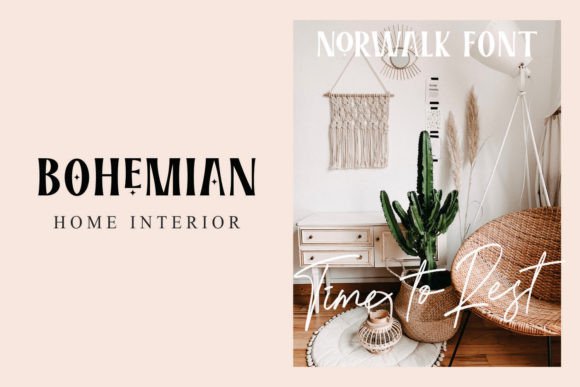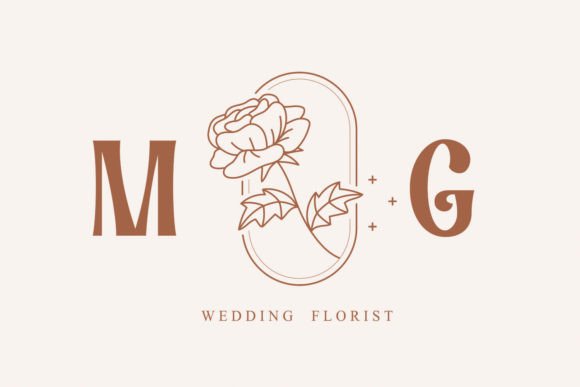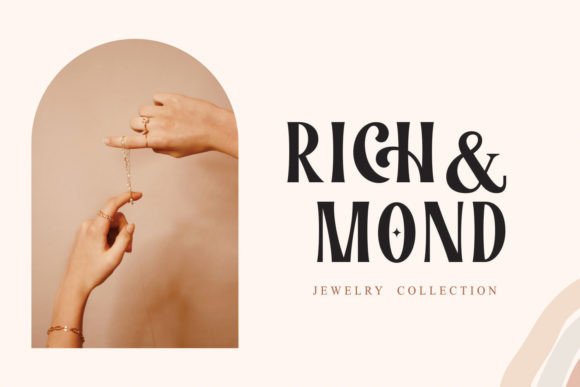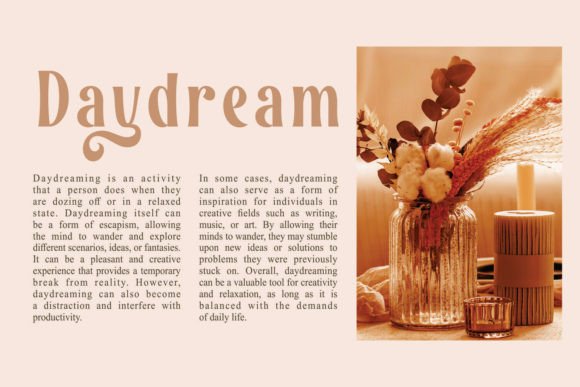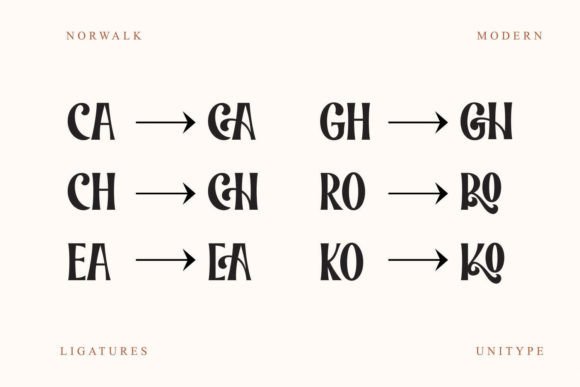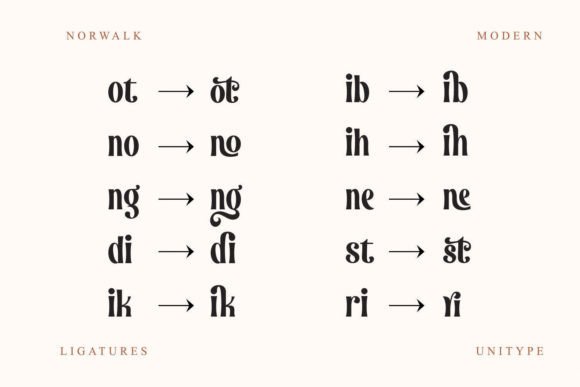
Introduction to Norwalk Font
Norwalk is a sleek and sophisticated typeface, perfect for any creative project.
Key Features of Norwalk Font
Why Choose Norwalk Font?
Norwalk Font offers exceptional quality and versatility, making it a valuable addition to your design toolkit. Whether you’re creating for personal projects or commercial use, Norwalk Font delivers professional results.